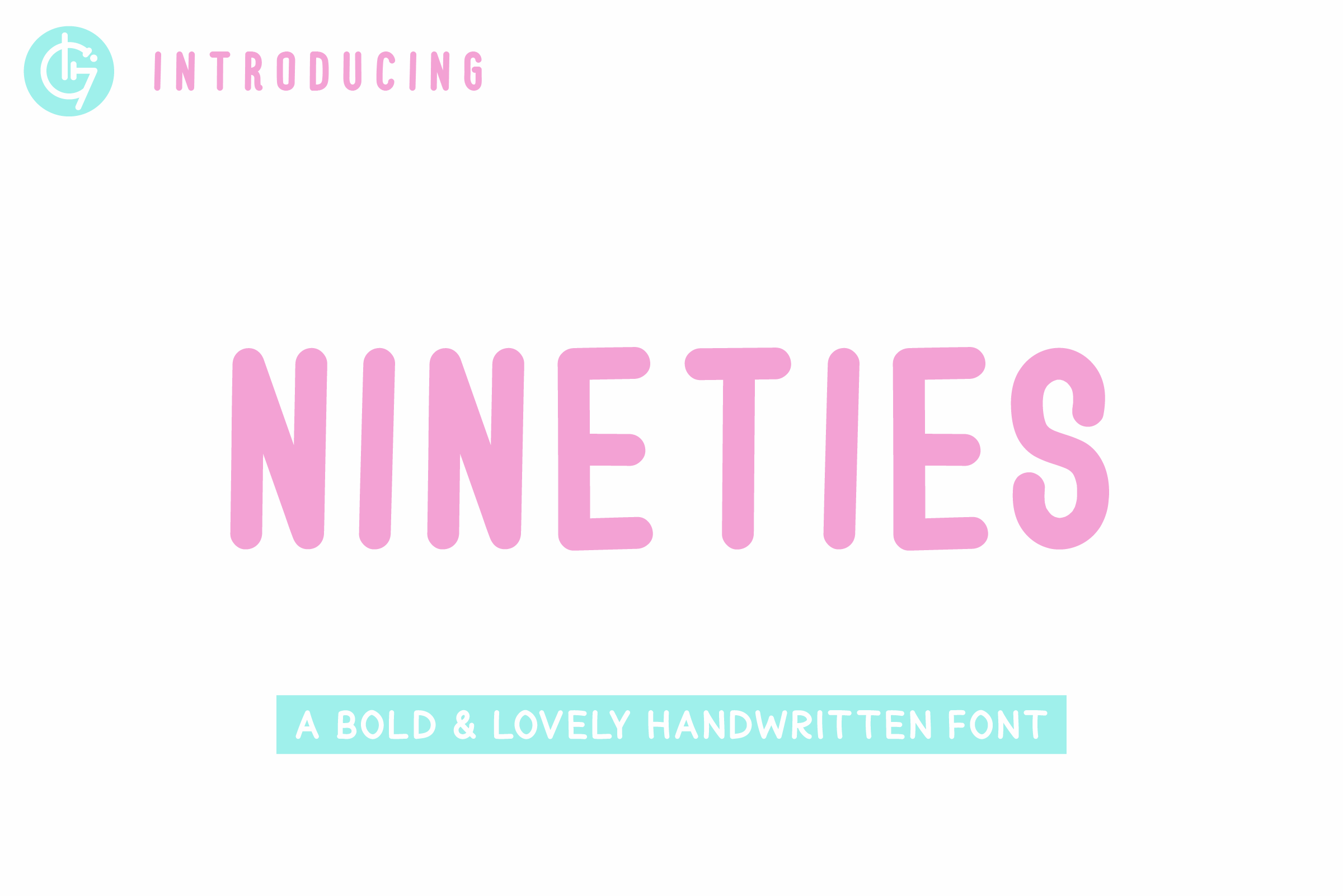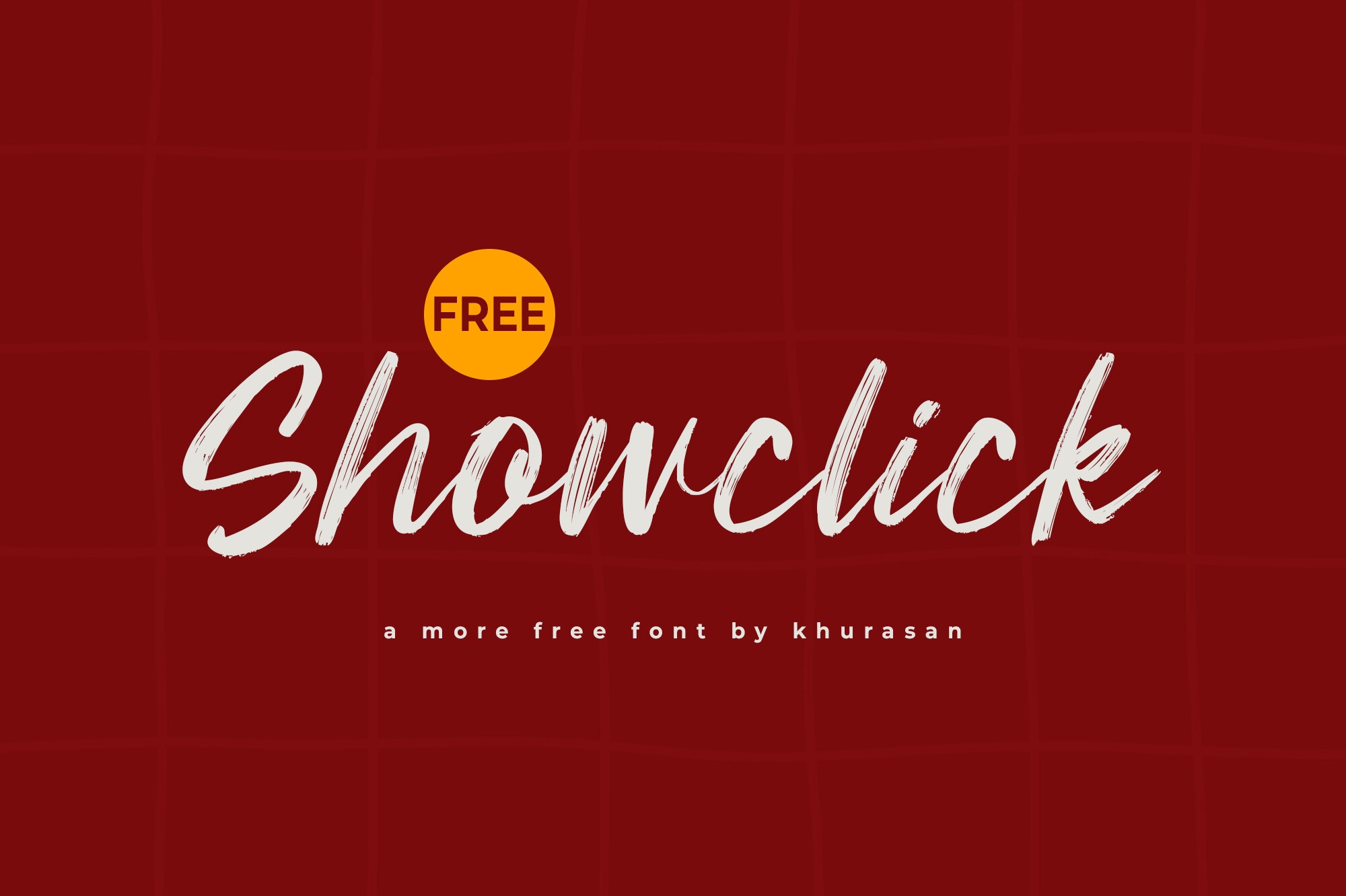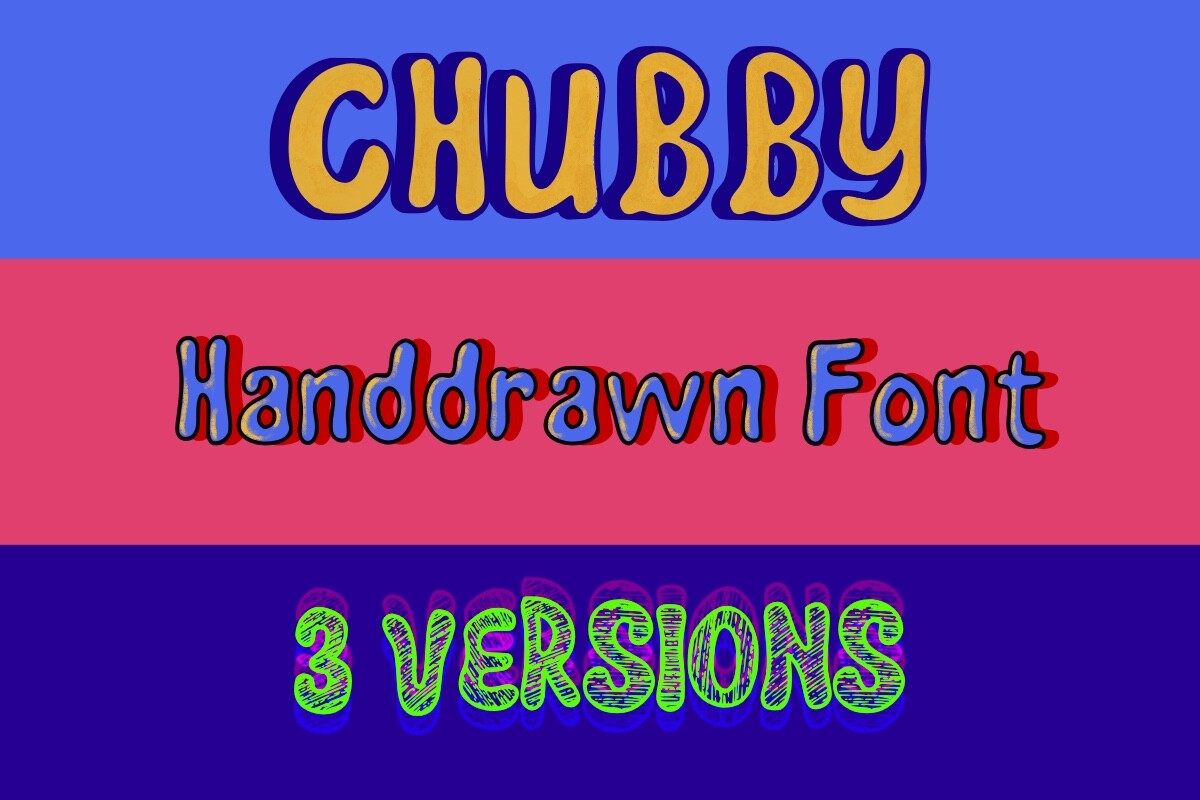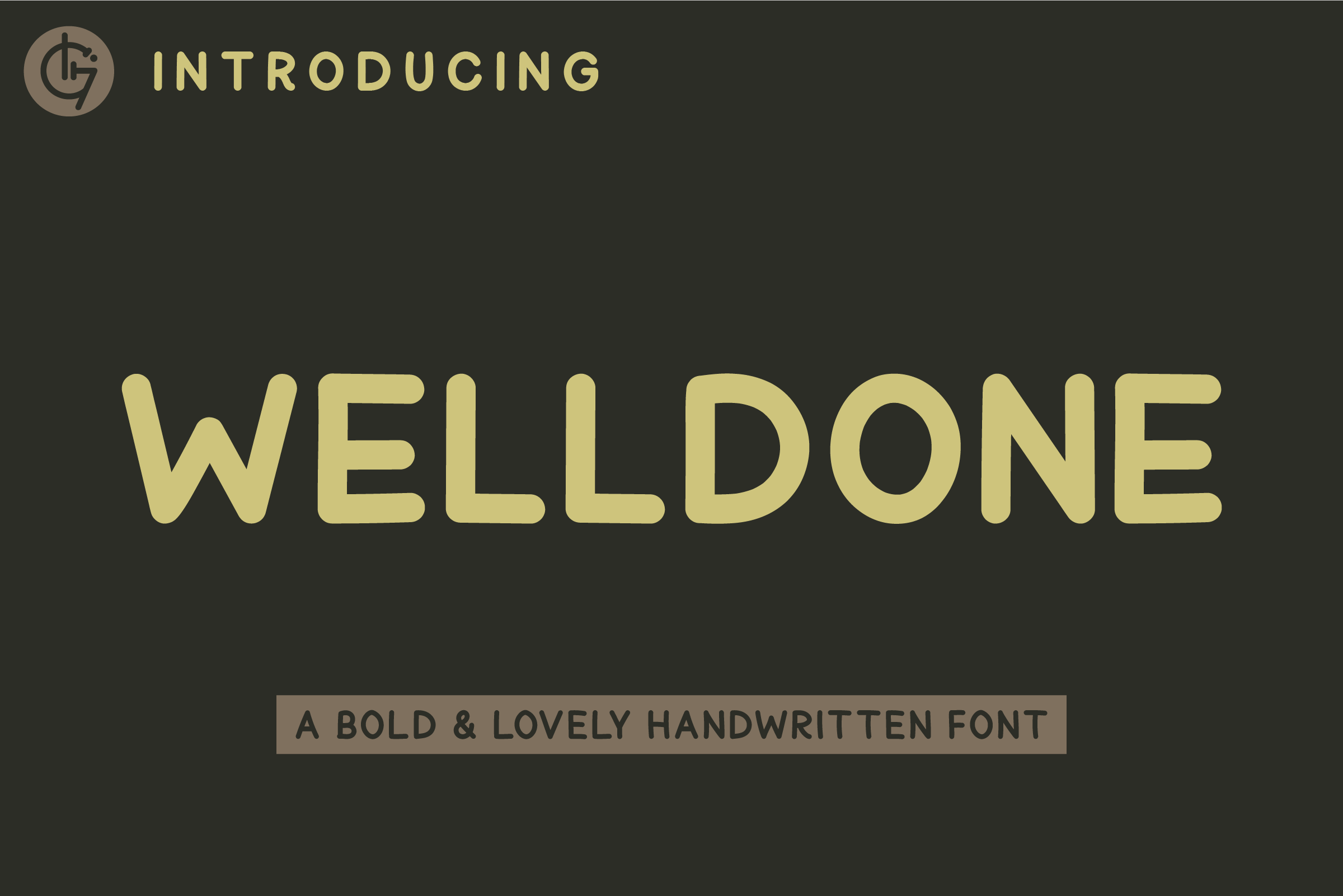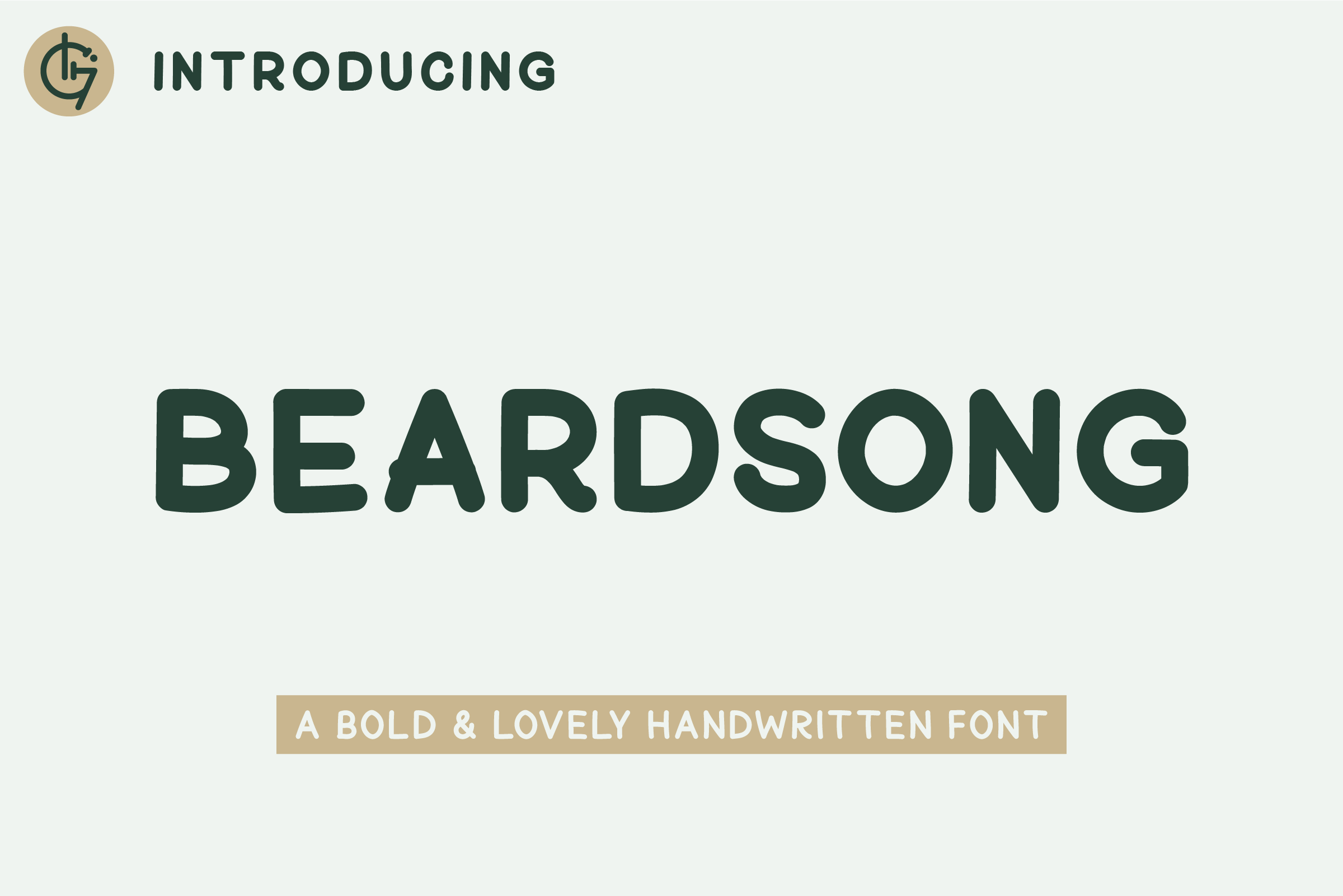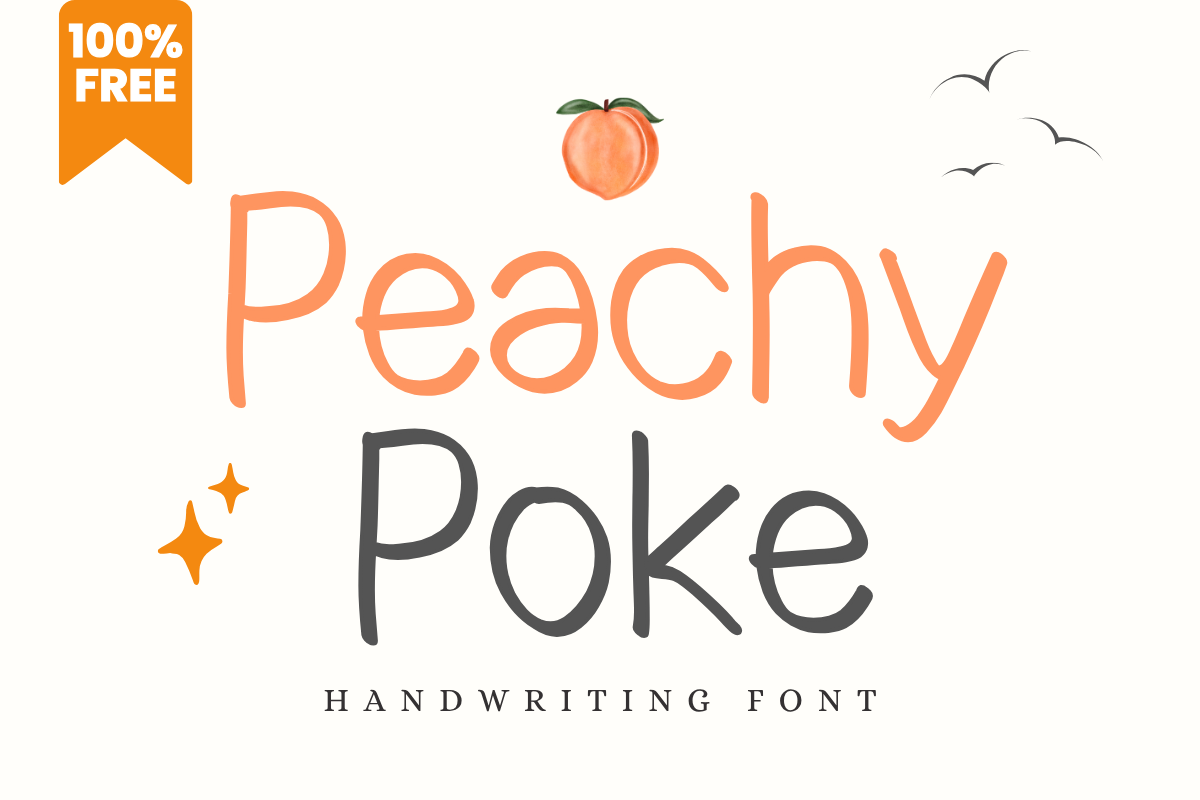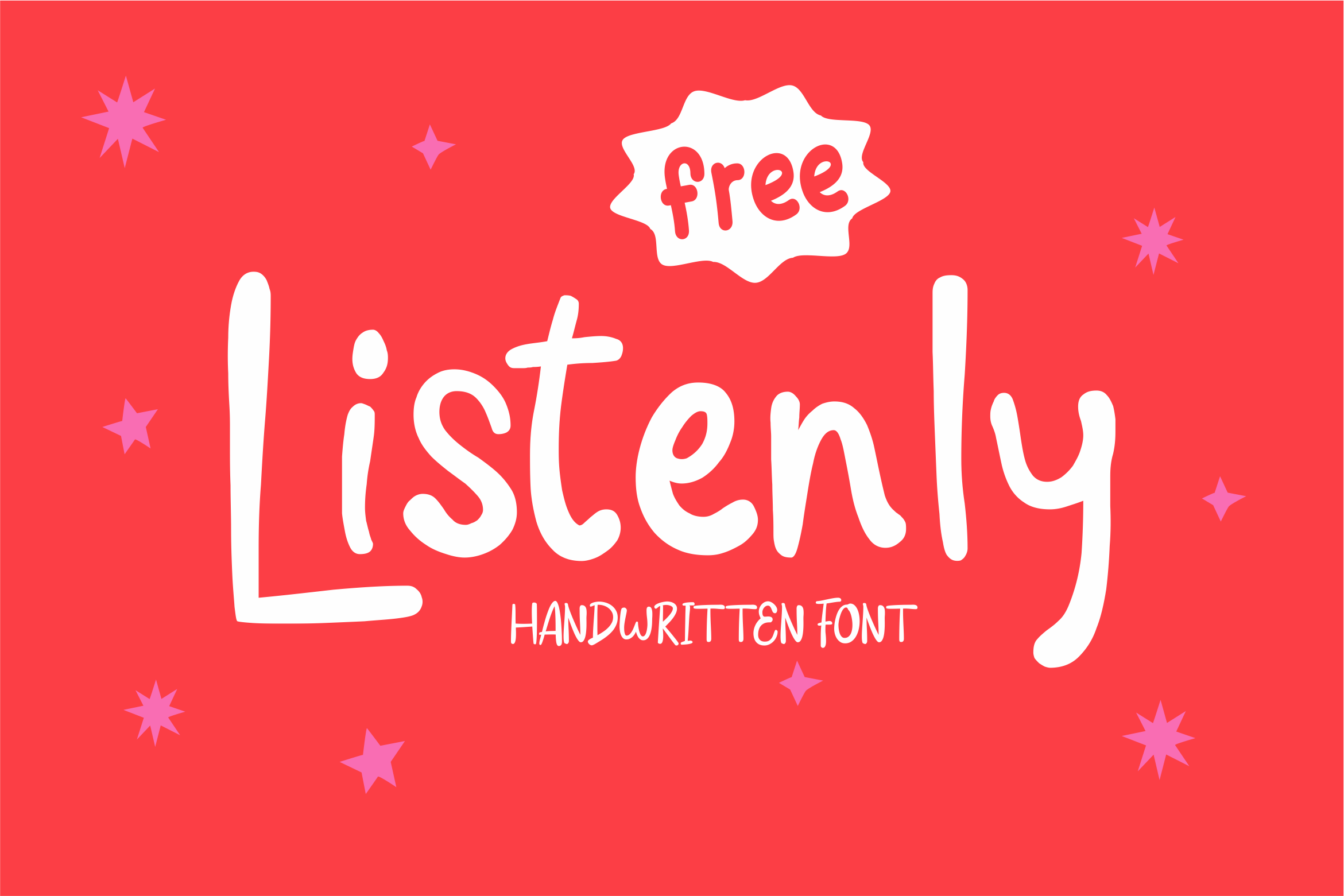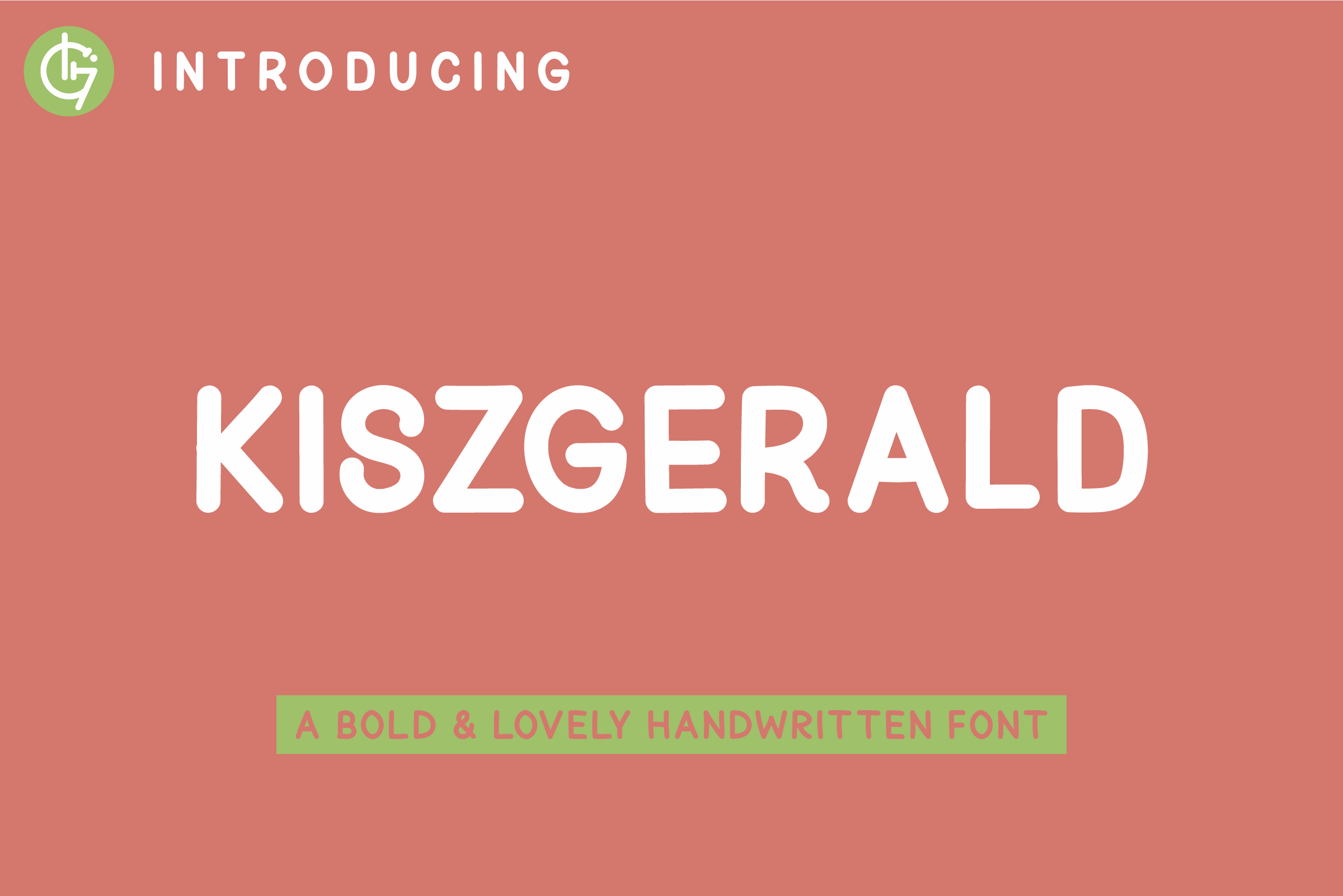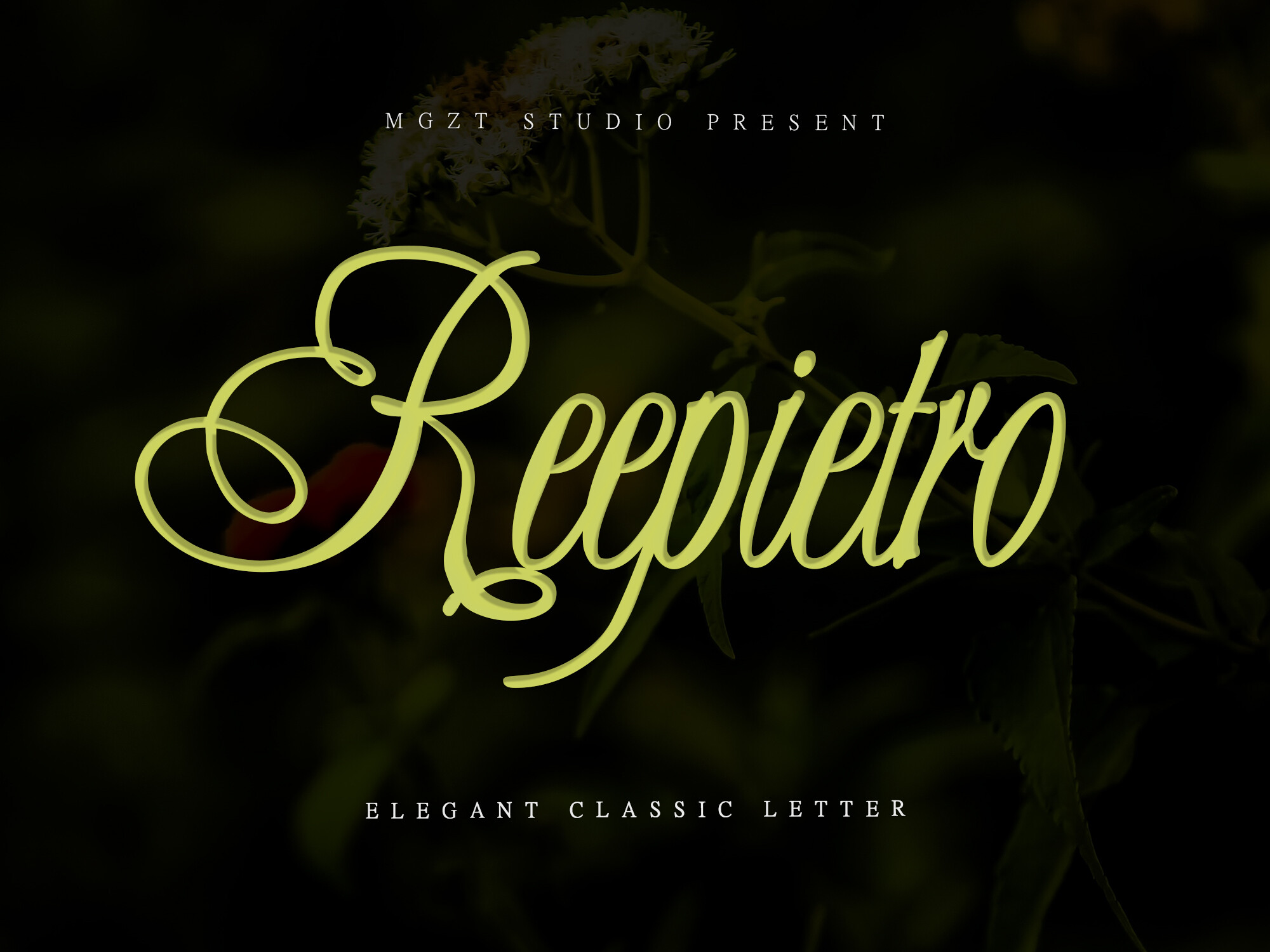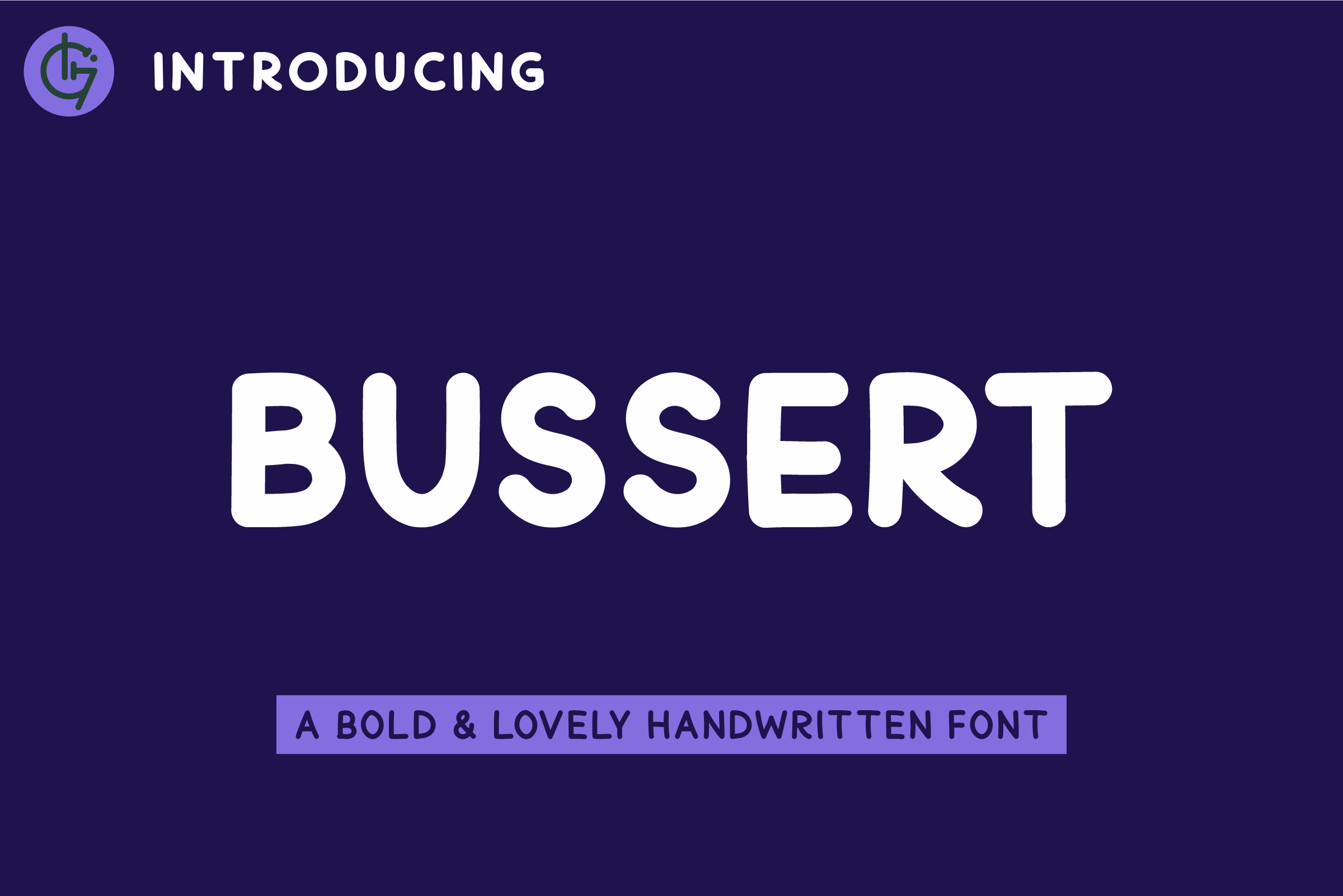
Welcome to Free Fonts Friday! This week, we present an exciting collection of free fonts perfect for your creative projects. From playful scripts to elegant typefaces, each font adds a unique flair to your designs. Featured this week are the Nineties, Showclick, Chubbytextured Regular, Welldone, Beardsong, Peachy Poke, Listenly, Kiszgerald, Reepietro, and Bussert. These fonts are crafted for versatility and can elevate everything from social media graphics to branding and invitations. Dive into this collection and find the perfect font to bring your ideas to life!
Nineties
Nineties is a playful all-caps font that embodies the quirky spirit of the 90s. Featuring a full set of capital letters, numbers, and punctuation, it's an ideal choice for creative projects that demand attention. Whether you're designing social media posts, t-shirts, or invitations, this font’s smooth lines and bold presence make it versatile and suitable for a variety of applications. Unleash your creativity and add a fun twist to your designs with Nineties, a font that resonates with nostalgia and charm.
Showclick
Showclick is a modern script font that brings a touch of elegance to your designs. Its fluid lines and stylish curves make it perfect for various applications, including posters, branding, and book covers. Whether you’re aiming for a chic, contemporary vibe or a more whimsical approach, Showclick adapts effortlessly to your creative vision. This versatile typeface can enhance your projects by adding a unique flair, making it stand out in both digital and print formats. Elevate your design game with Showclick today!
Chubbytextured Regular
Chubbytextured Regular is a delightful hand-drawn font that exudes personality and charm. Its chunky, playful strokes add a warm touch to any project, making it ideal for children’s books, stickers, and fun classroom materials. The font includes three unique styles—clean, shadowed, and textured—providing versatility while maintaining a cohesive aesthetic. Whether you're crafting posters, greeting cards, or digital art, this charming typeface enhances your designs with a friendly and expressive flair. Embrace creativity with Chubbytextured Regular!
Welldone
Welldone is another charming all-caps font that captures a playful essence. With its bold structure, this font is perfect for various projects, including social media graphics, t-shirts, and invitations. It showcases a clean and smooth design that makes it user-friendly and adaptable for any creative endeavor. Whether you’re crafting a personalized gift or designing promotional materials, Welldone adds a delightful touch that draws in viewers and enhances your message. Explore your creativity with this versatile font that stands out beautifully.
Beardsong
Beardsong is a bold and quirky all-caps font that makes a statement. It features a complete set of uppercase letters, numbers, and punctuation, making it versatile for various applications. Ideal for social media posts, t-shirts, stickers, and other creative projects, Beardsong's smooth design adds a touch of fun and flair to your work. This font is perfect for those looking to capture attention and convey a playful message. Explore the possibilities with Beardsong and let your creativity shine!
Peachy Poke
Peachy Poke is a charming handwritten font that brings a warm, friendly vibe to your designs. Its delightful curves and slightly imperfect strokes create an approachable feel, perfect for children's books, branding, and social media content. The font is designed for clarity and readability, ensuring your messages are communicated effectively. With Peachy Poke, you can infuse your projects with a sense of playfulness and creativity, making it a fantastic choice for anyone looking to add a personal touch to their typography.
Listenly
Listenly is a casual handwritten font that exudes a friendly vibe, making it perfect for informal designs. Its smooth, flowing strokes create an authentic handwritten feel, ideal for notes, educational materials, and creative projects. The font adds warmth and clarity, making your text easy to read and engaging. Whether you're working on personal projects or professional materials, Listenly helps you convey a sense of approachability and creativity, making it a great choice for various applications.
Kiszgerald
Kiszgerald is a vibrant all-caps font that captures the essence of fun and creativity. Featuring a complete set of uppercase letters, numbers, and punctuation, this font is perfect for projects that want to convey energy and playfulness. Use Kiszgerald for social media graphics, posters, and any crafty endeavor to add a unique twist to your designs. The font’s smooth lines and bold character make it easy to read while ensuring your message stands out. Explore your creativity with Kiszgerald and make a lasting impression!
Reepietro
Reepietro is an elegant script font that beautifully marries contemporary design with classic influences. Its fluid curves and balanced letterforms give it a sophisticated appearance, making it perfect for branding, invitations, and editorial projects. This font embodies a timeless charm, ideal for anyone looking to add a touch of elegance to their work. Reepietro’s versatility ensures it can be used across various mediums, enhancing the aesthetic of your design while maintaining clarity and readability. Elevate your projects with this stunning typeface!